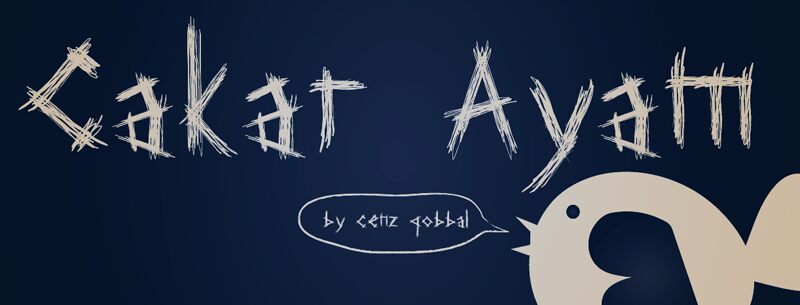
Cakar Ayam by Cenz Qobbal is a free trash script with frantic, layered strokes and a raw hand-scratched finish. Its tall, angular letters shift in width and alignment, with repeated lines creating a restless edge rather than a smooth written flow. The roughness is immediate and deliberate.
Concert posters are its strongest setting, since the nervous marks suit punk, metal, and experimental music, as well as horror title cards and rebellious clothing graphics. In magazine covers and underground arts publishing, the lettering can act directly like a piece of scratched illustration, tying type to photocopied textures and aggressive editorial imagery.